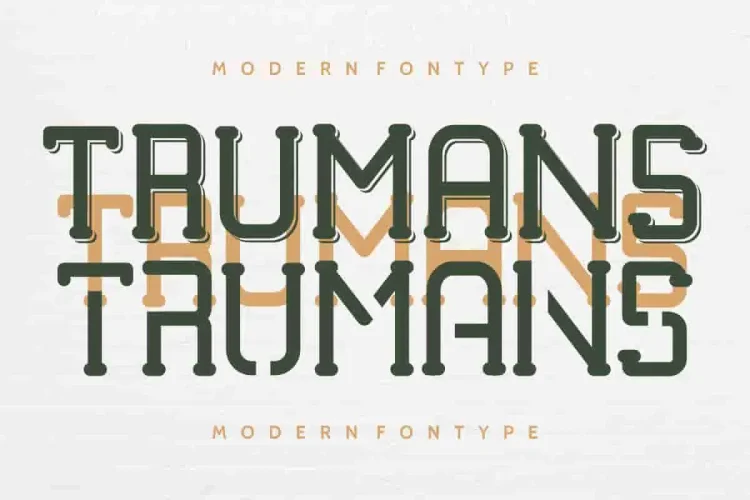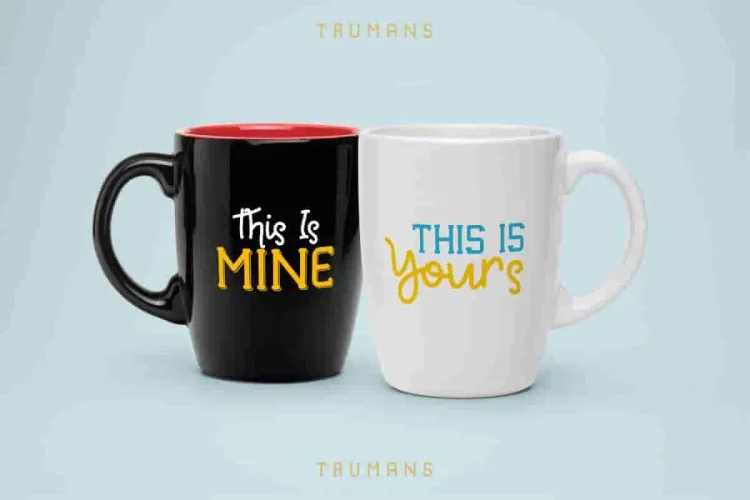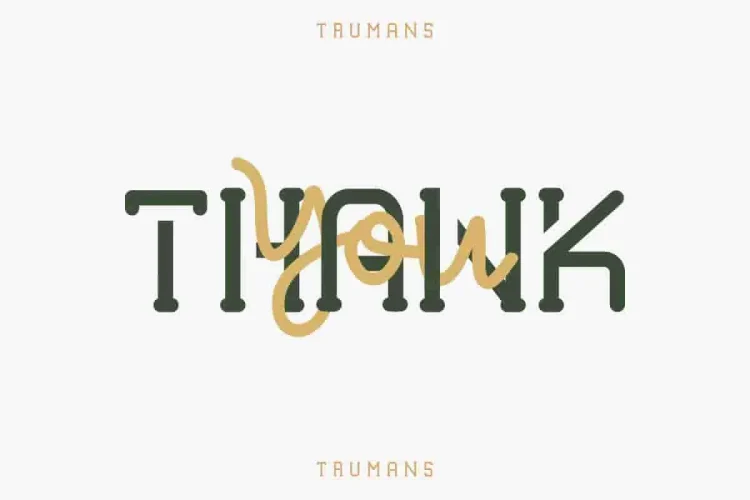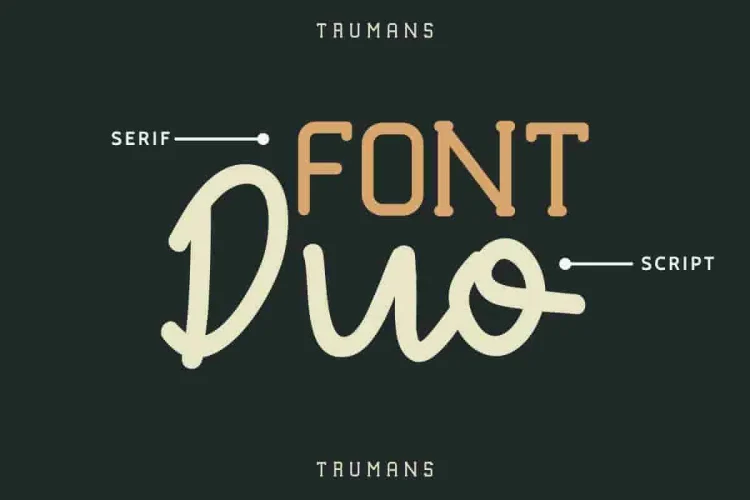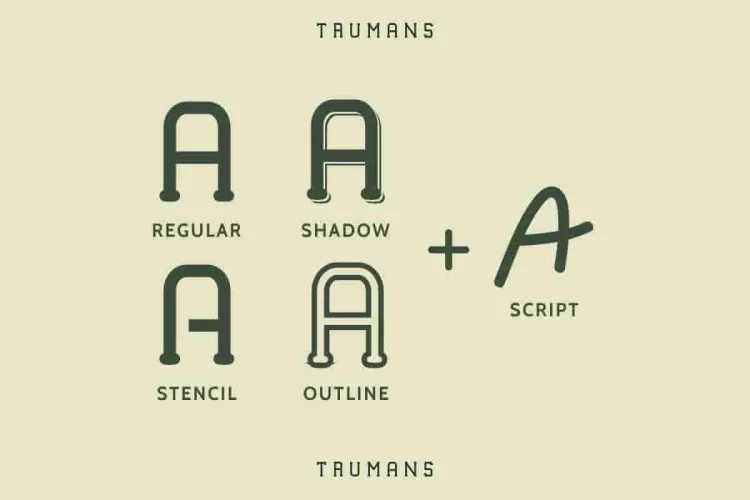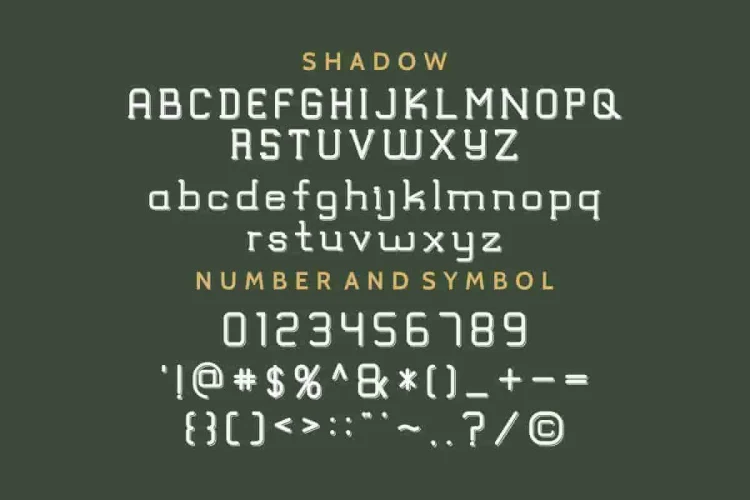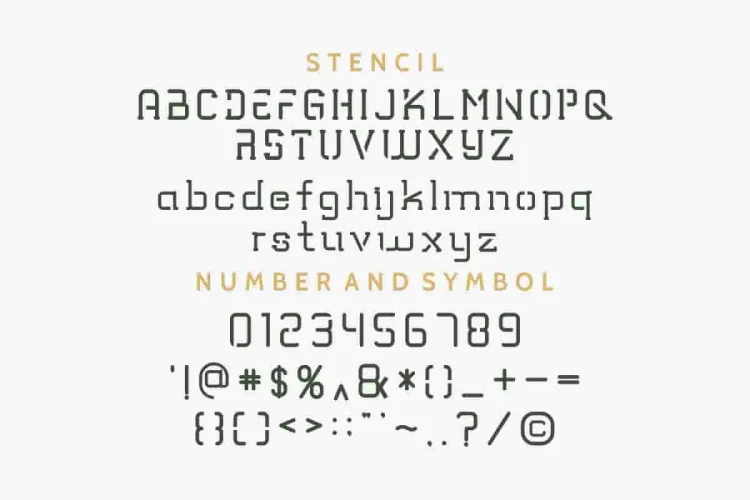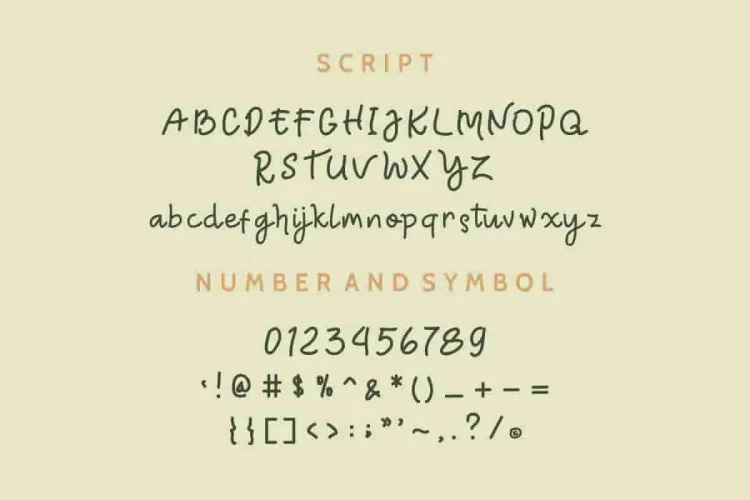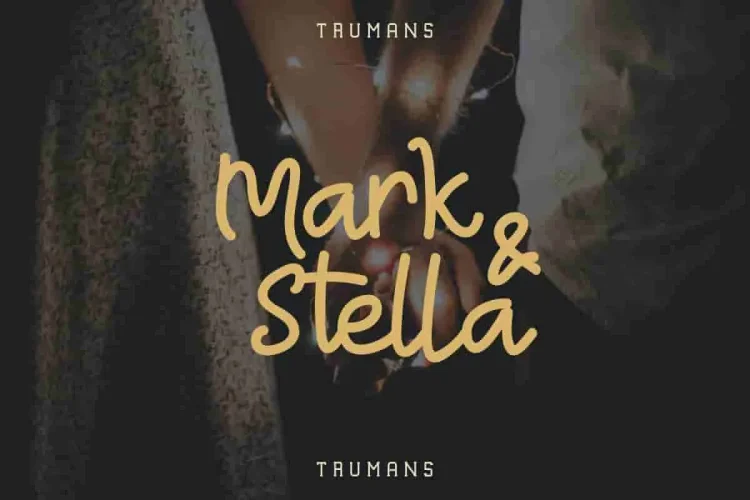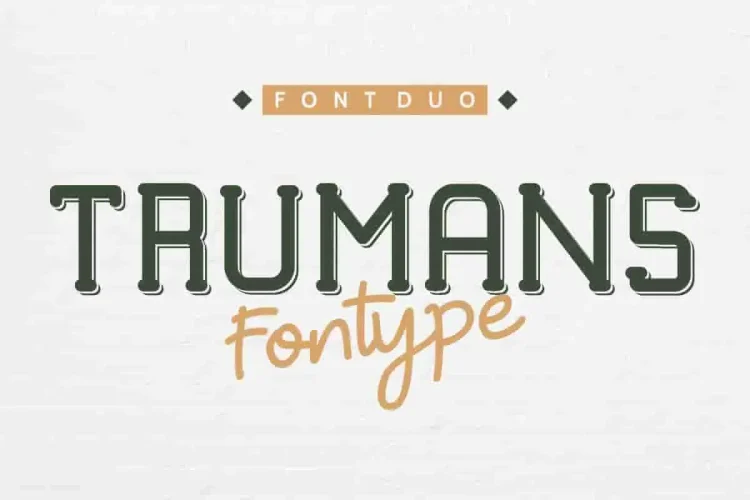
TRUMANS Modern Sans Font Duo
Hi Everyone! Introducing our newest font : TRUMANS ! It’s a DUO Font family with FIVE unique styles into one seamless design system: Regular, Stencil, Shadow, Outline, and Script. Whether you’re working on futuristic branding or artistic visuals, TRUMANS gives you total creative freedom.
✨ Five Distinct Styles, One Unified Voice
• TRUMANS Regular
A sleek, modern sans serif with geometric construction and subtle rounded terminals. Perfect for tech brands, digital products, editorial titles, and display text that demands clarity and professionalism.
•  TRUMANS Stencil
With its industrial, futuristic cut-outs, the stencil version is built for innovation. Great for startups, construction, plumbing, roofing, or bold typographic experiments.
•  TRUMANS Shadow
Bring depth and dimension to your words. The 3D shadow style is perfect for attention-grabbing headlines, retro branding, product labels, and festival posters.
• TRUMANS Outline
A clean yet decorative version that maintains legibility while giving a modern architectural aesthetic. Great for fashion, real estate, and creative agencies.
• TRUMANS Script
Add a human touch to your designs with this casual, handwritten font. Use it for signatures, quotes, logos, invitations, or pairing with bold sans serif for elegant contrast.
This is an Exclusive font family. No one has these things: modern, fresh, elegant, minimalist, sharp, rounded, condensed, mono-spaced, handwritten, comic, geek, tech, decorative, retro and stylish glyph.
🎯 Why Designers Choose TRUMANS Font Duo:
• 5-in-1 Font Family: Regular, Stencil, Shadow, Outline, and Handwritten Script included
• Modern, Geometric & Expressive: Ideal for both tech-savvy brands and creative professionals
• Wide Use Cases: From corporate logos to wedding invitations, posters to packaging
• Perfect for Startups, Real Estate, Labs, Plumbers, Florists, Designers, and More
It Will be perfect for most of your project. Great for branding, logo, stationery, business card, signage, flyer, brochure, magazine headline, ads, banner, decorative, etc. There are many industries that is suitable for this font : Startup, lab, plumbing, construction, real estate, wedding organizer, law firm, roofing, wood etc